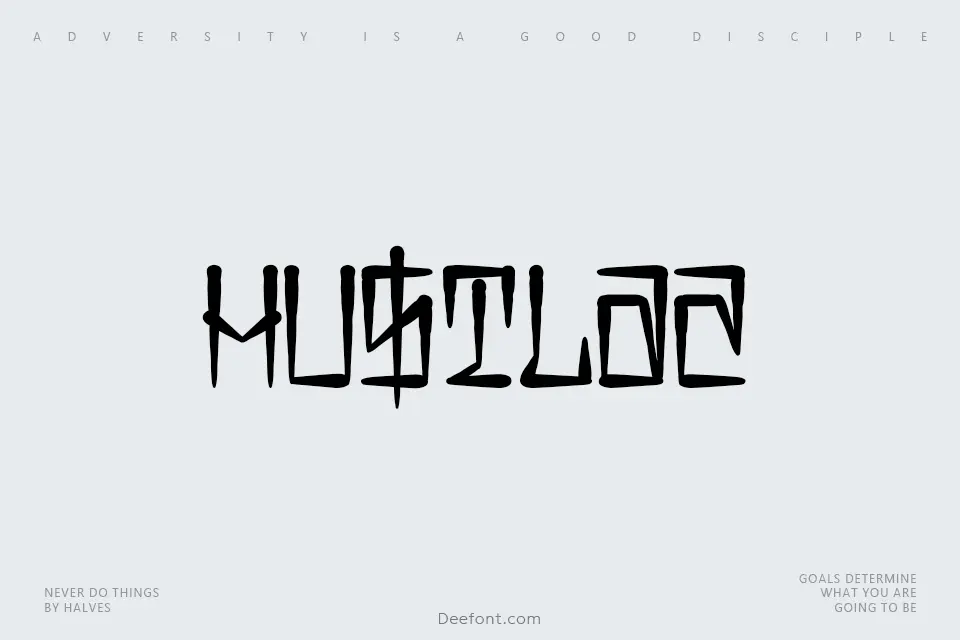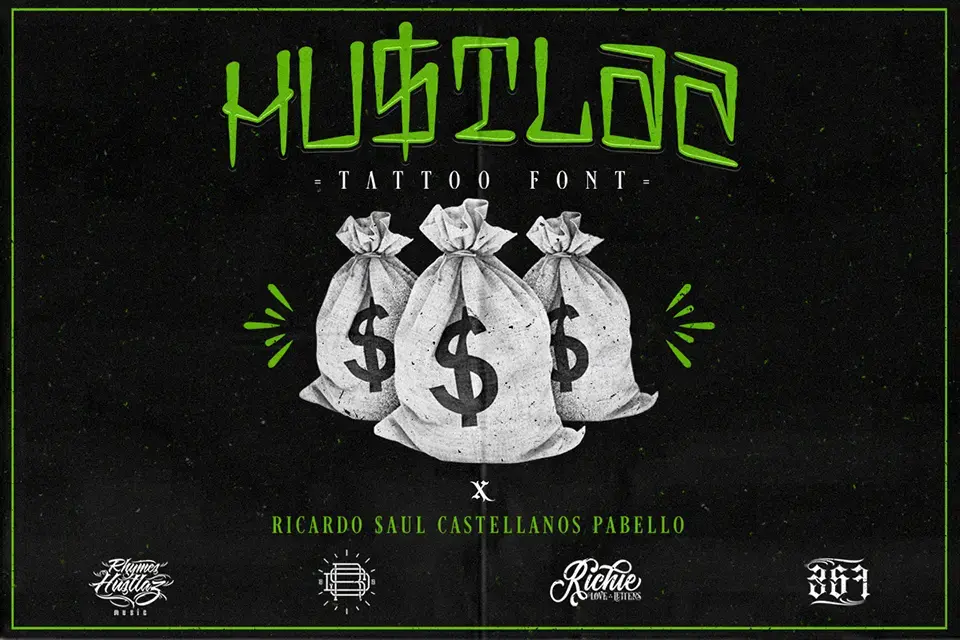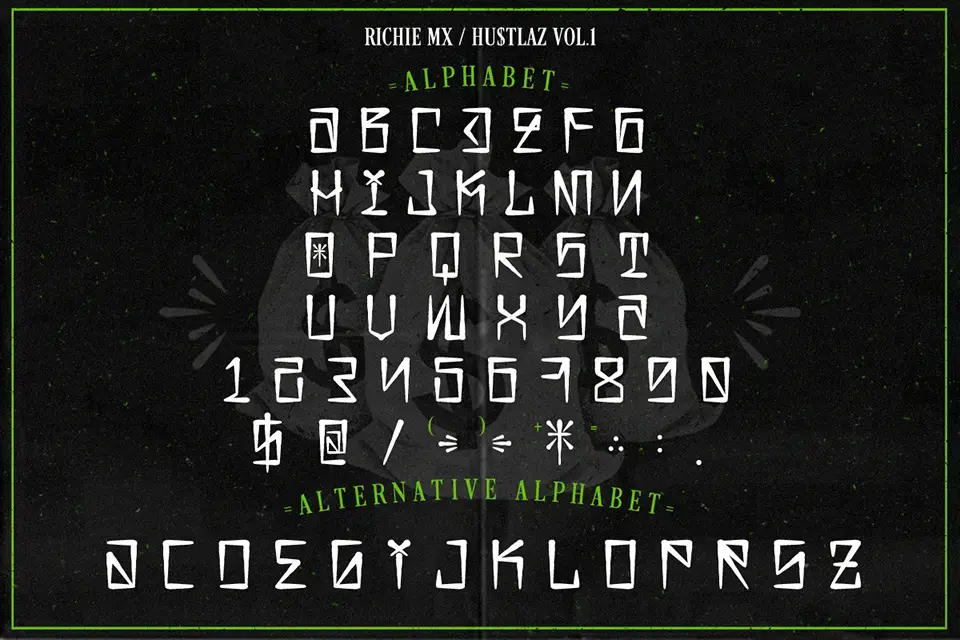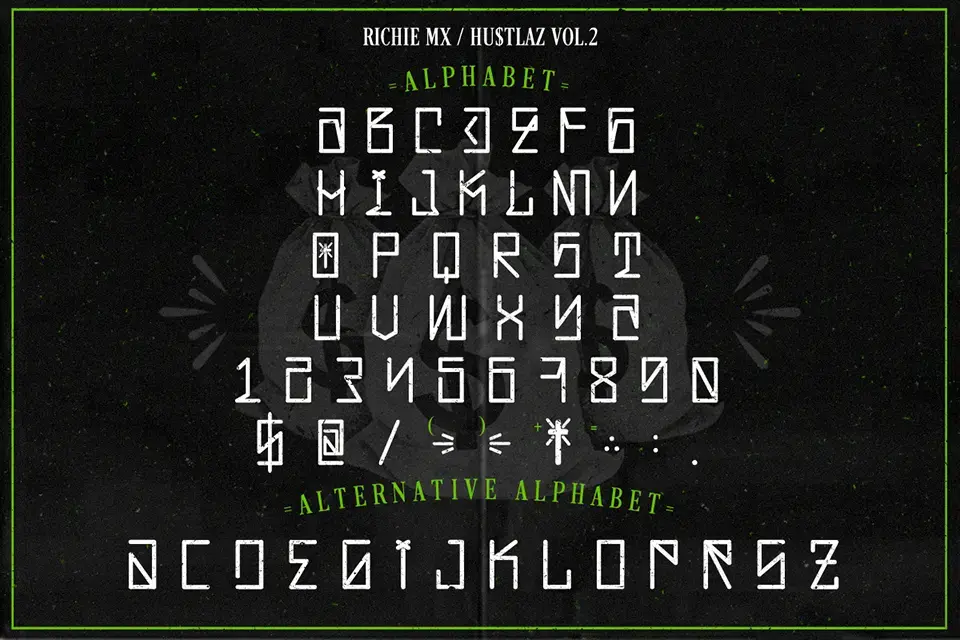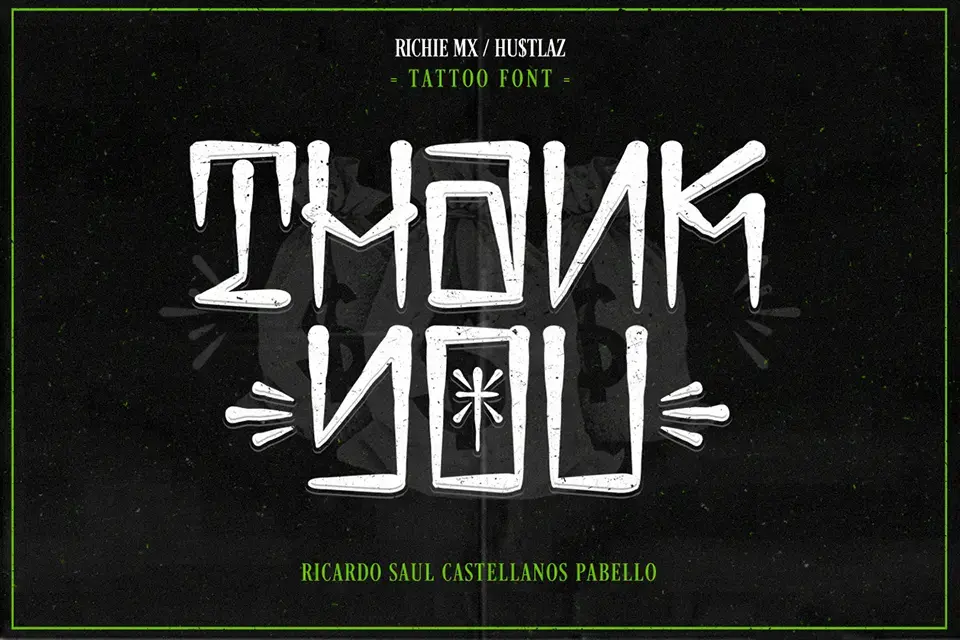
Hustlaz Font
Hustlaz is an urban graffiti typeface inspired by the distinctive lettering style of Cholo and gang culture. Designed with bold, angular forms and expressive characteristics, this display font captures the raw energy of street art and urban typography. Perfect for streetwear branding, music album covers, posters, and creative projects seeking authentic urban aesthetics. The font features 236 glyphs and combines contemporary design with traditional street culture influences.